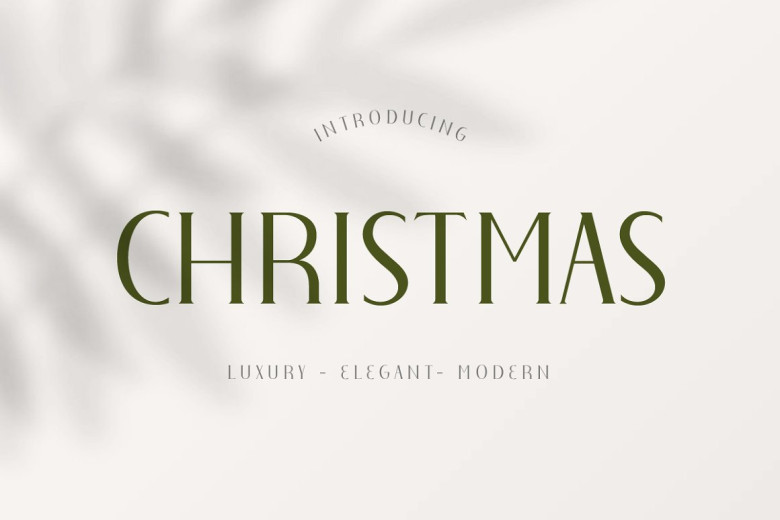
Christmas Font
Christmas Elegant Font was designed with your Christmas projects in mind! This Serif font has a minimalistic but standout style for any work from movie titles, music album covers, magazines, beauty ads, and even invitations. The font is easy to read and perfect for all of your holiday needs!
Christmas Elegant Serif Font